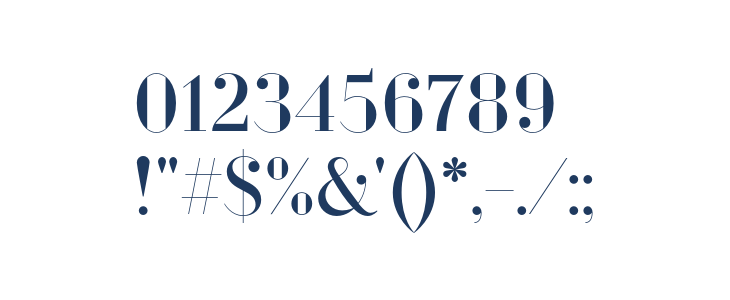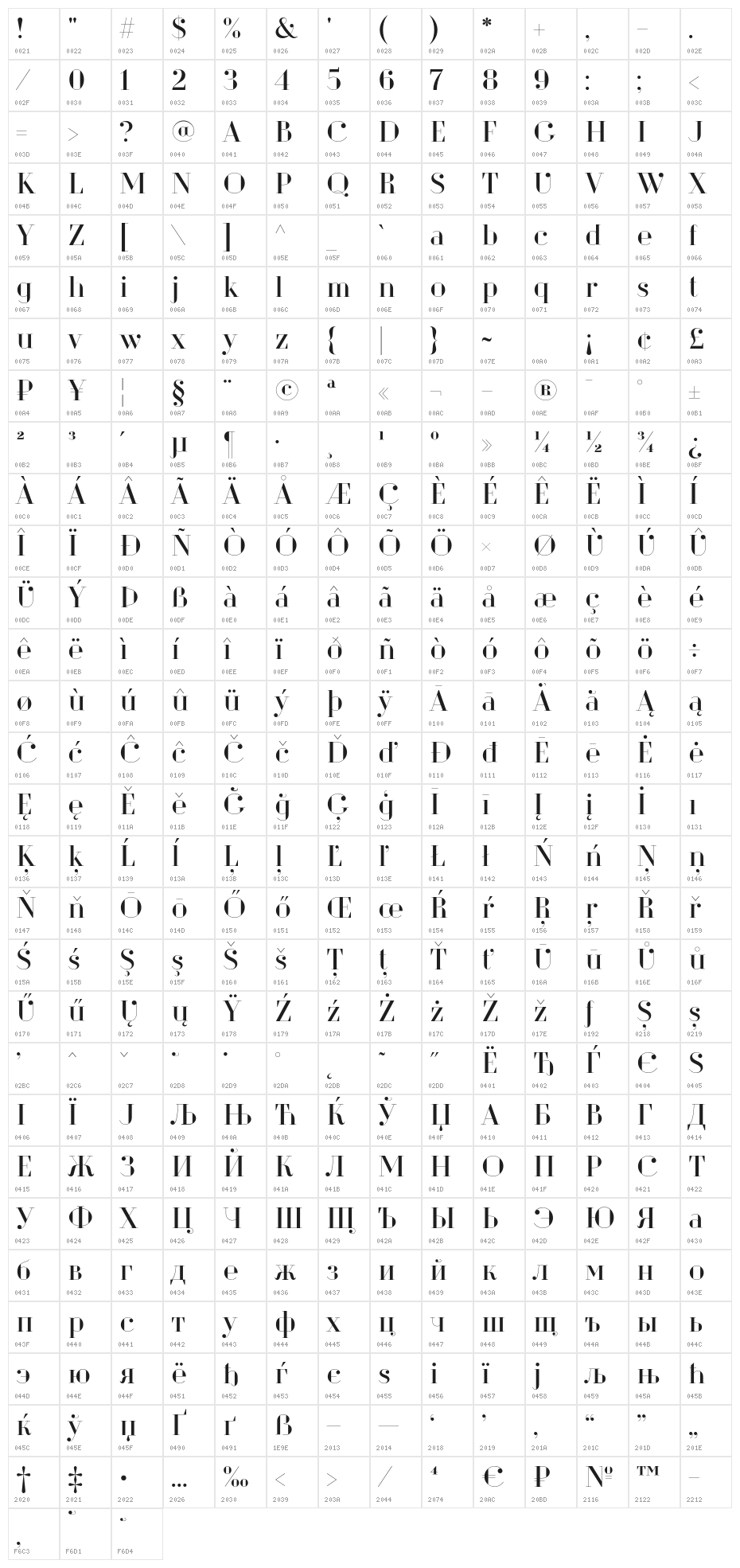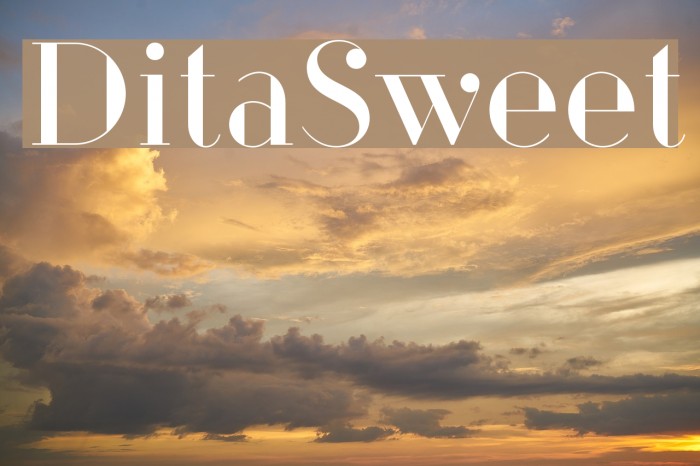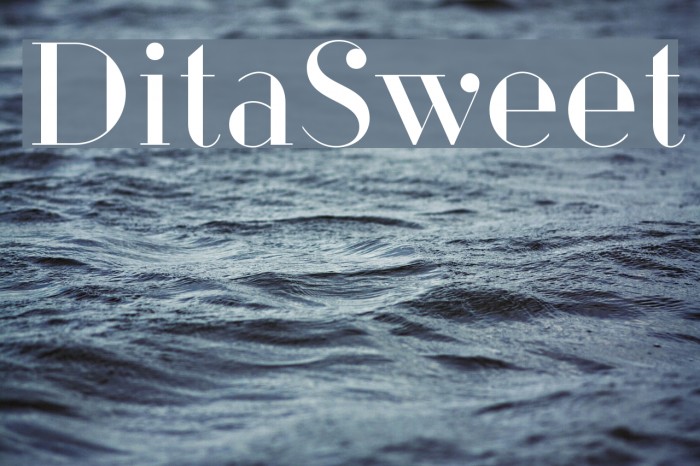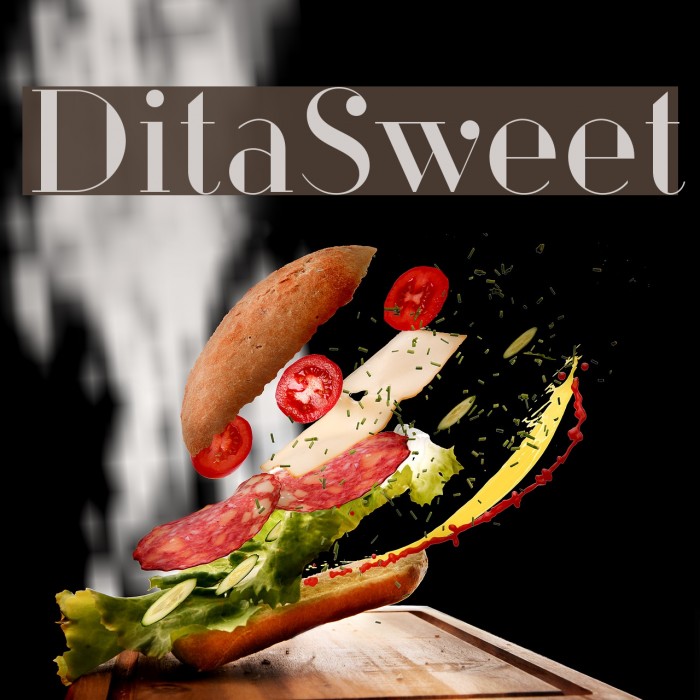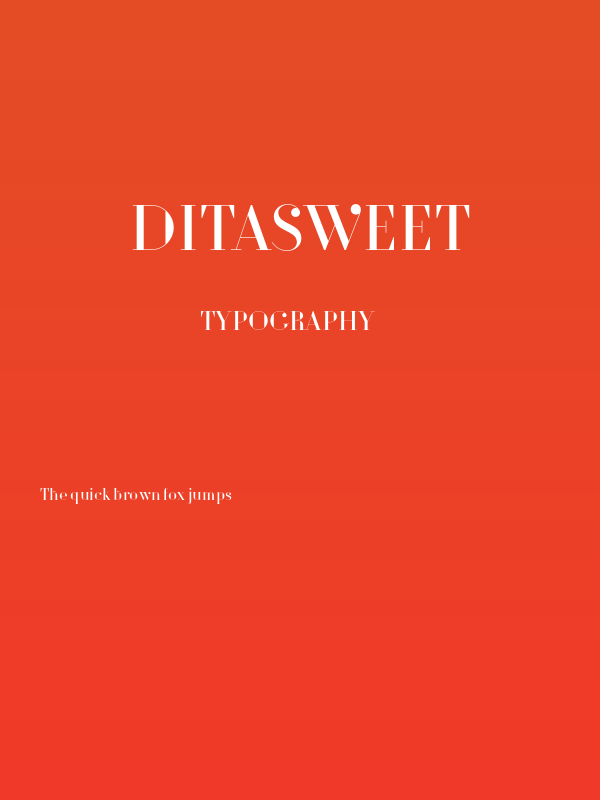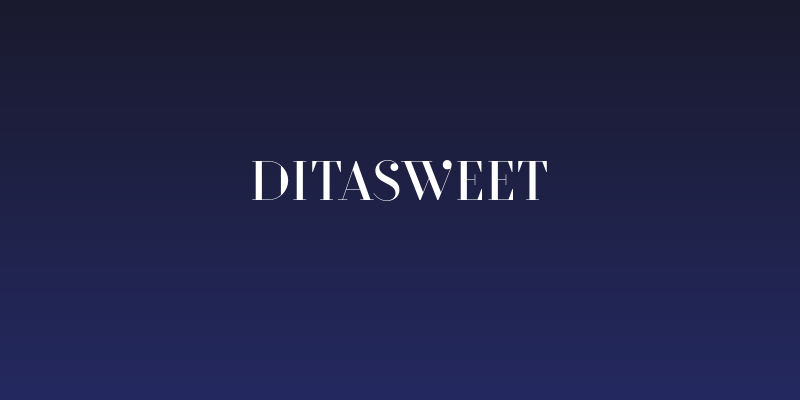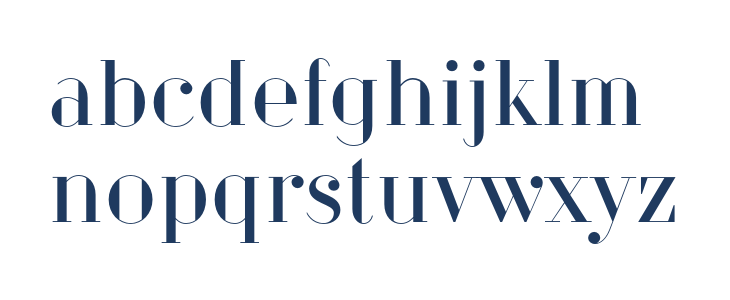
DitaSweet Font
DitaSweet Description
This font features a striking blend of modern elegance and classic sophistication. The uppercase letters are characterized by their bold, geometric forms with high contrast between thick and thin strokes, creating a dramatic visual impact. The lowercase letters maintain a consistent style, offering a smooth transition with their rounded edges and subtle curves. The numerals are designed with a similar aesthetic, ensuring uniformity across all characters. Special characters are crafted with attention to detail, enhancing the font's versatility. This typeface is ideal for projects that require a touch of luxury and refinement.
| Use Case | Headlines, Logos, Editorial design |
| Proposed Projects | Ideal for luxury branding, editorial design, high-end packaging, and sophisticated invitations. |